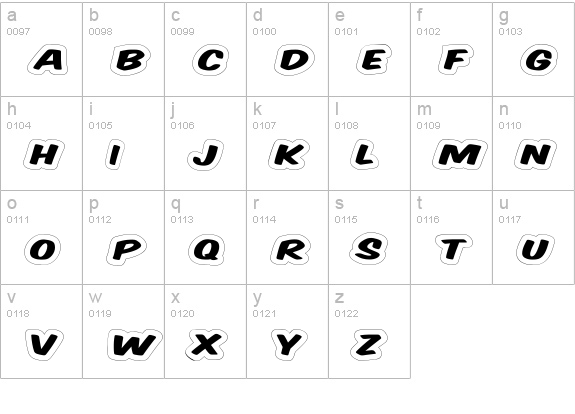
Komika Title - Wired is a modern and stylish font that exudes a sense of creativity and innovation. With its unique wired design, this font is perfect for projects that require a contemporary and edgy look. The clean lines and sharp angles of Komika Title - Wired make it ideal for logos, headlines, posters, and more. The best part is that Komika Title - Wired is available for free download at FontsMarket.com. You can easily add this eye-catching font to your collection without any cost. Don't miss this opportunity to elevate your designs with Komika Title - Wired and make a bold statement.